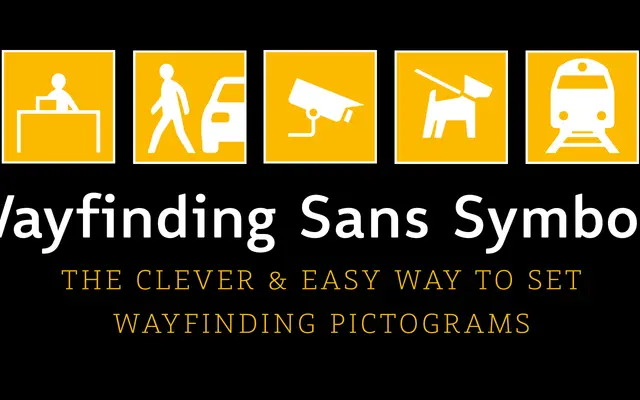
Wayfinding Sans Symbols
FDI Type Foundry · Andreas Wohlleben · 2013
A pictogram font of over 400 symbols for wayfinding and signage, using OpenType ligatures so designers type mnemonic codes rather than hunting through glyph palettes.
Designed by Andreas Wohlleben, this symbol font replaces the slow process of placing individual vector images by encoding pictograms as typed mnemonics such as #wheelchair or #parking, activated via OpenType ligatures. The 400-plus glyphs cover transport, disability, directional arrows, enclosed letters and numbers, and span Unicode's Transport & Map Symbols range. Four style variants offer rectangular or round forms in positive or negative versions, and the #fill and #ban prefixes allow background colour and prohibition overlays without leaving the type environment.
A purely symbolic typeface consisting of over 400 pictograms for signage use, with no conventional letterforms; categorised as display given its specialised, non-text function.